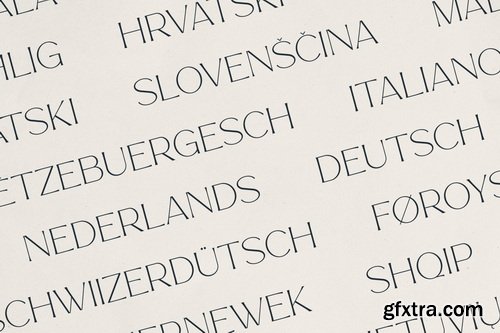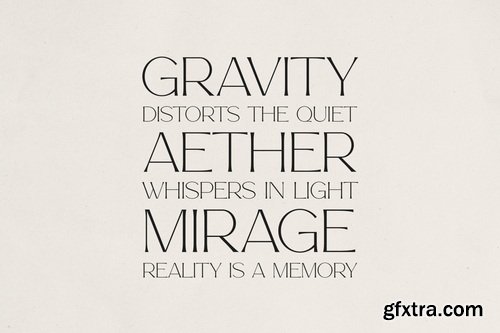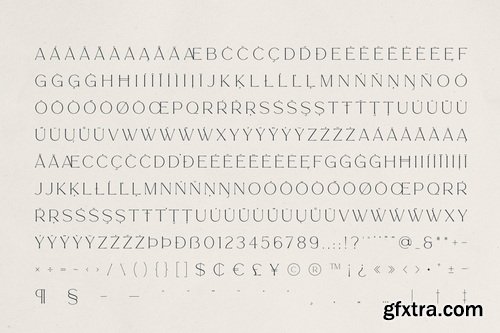
CreativeMarket - Esmarya - Modern Serif
Esmarya is a refined serif typeface crafted for designers who value both expression and clarity. With high contrast strokes, graceful curves, and minimalist construction, Esmarya bridges editorial sophistication with modern branding needs.